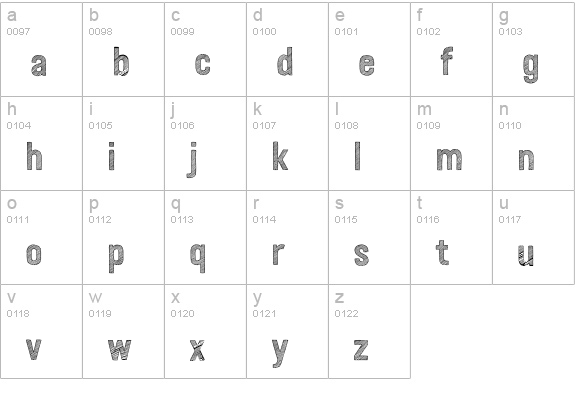
Festivo LC Sketch2 Font Details
Festivo LC Sketch2 font is a playful and whimsical typeface that adds a touch of creativity to any design project. With its hand-drawn style and unique characters, this font is perfect for adding a fun and cheerful vibe to invitations, posters, branding materials, and more. The irregular shapes and uneven lines give Festivo LC Sketch2 font a personalized and artistic feel, making it stand out from other fonts. The best part is that Festivo LC Sketch2 font is available for free! You can easily download this charming font at FontsMarket.com and start using it in your projects right away. Whether you're a designer looking to add a dash of personality to your work or someone looking for a fun and expressive font for personal projects, Festivo LC Sketch2 font is sure to delight and inspire. Don't miss out on this opportunity to enhance your designs with this delightful and freely available font.